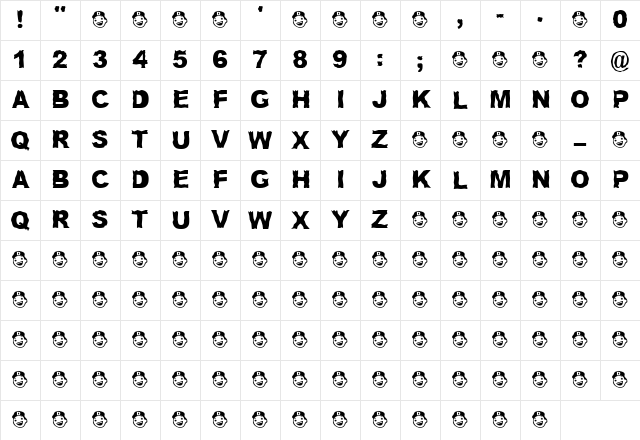
Witness2HB Regular
Design Context for Witness2HB
Witness2HB is a composed and adaptable typeface that performs quietly and consistently across a wide range of design contexts.